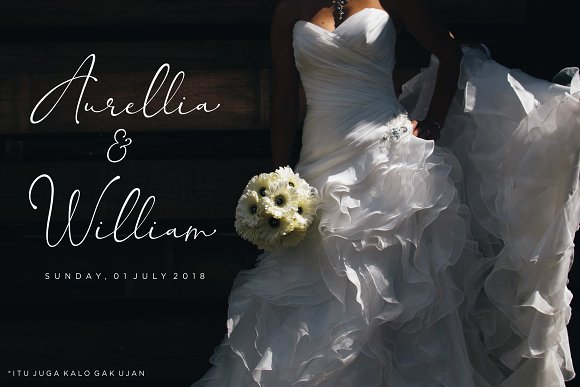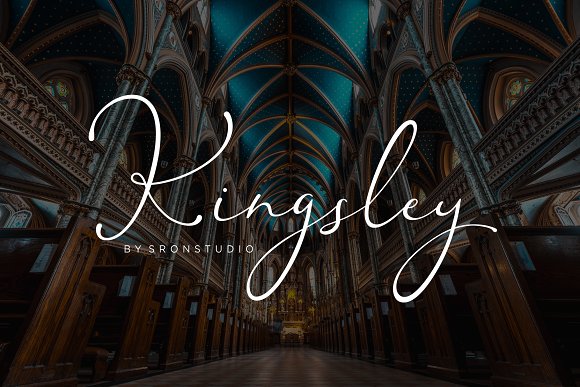
Kingsley Script
Kingsley Modern Script Font
Kingsley – Modern Script Font
Introducing Kingsley – a new modern & fresh script with a stylish handwritten and script style make this font looks natural, classy, natural and perfect for any awesome projects that need handwriting taste.